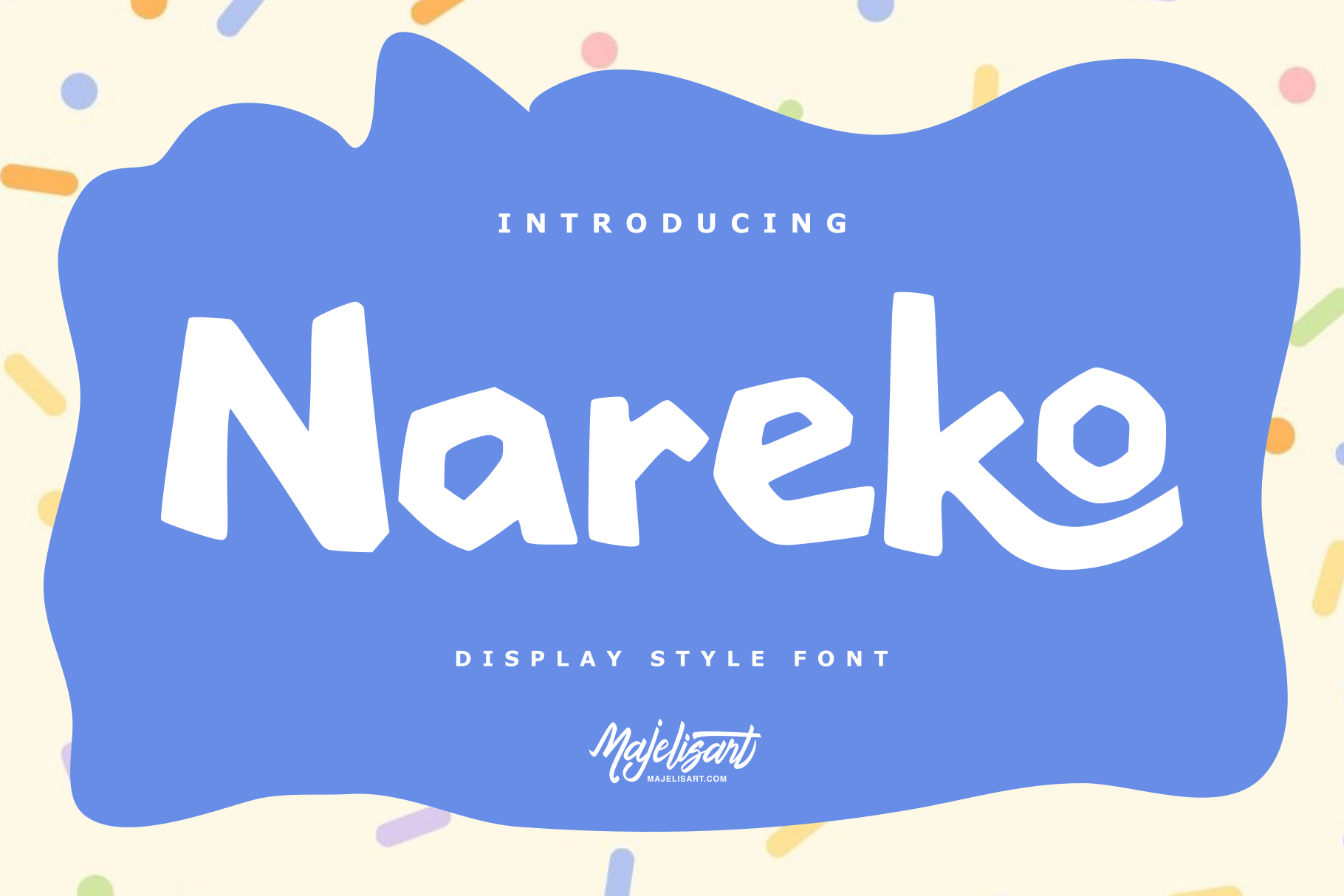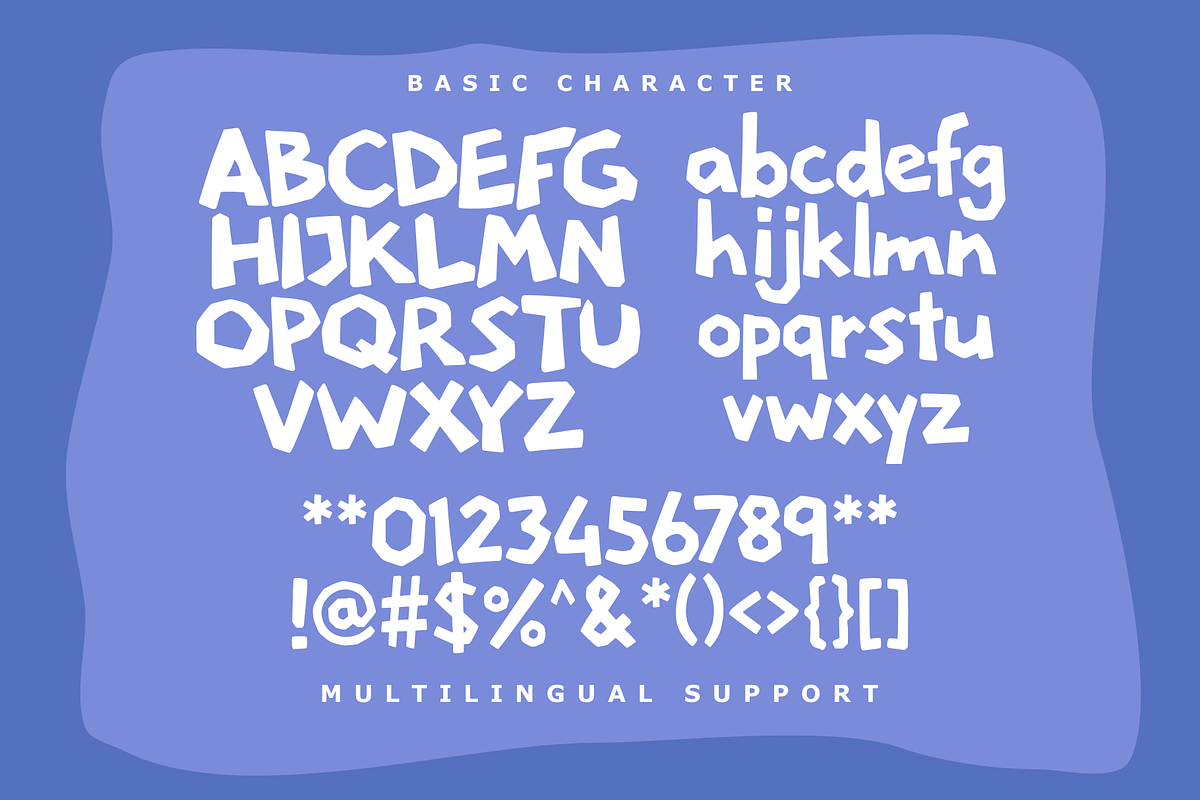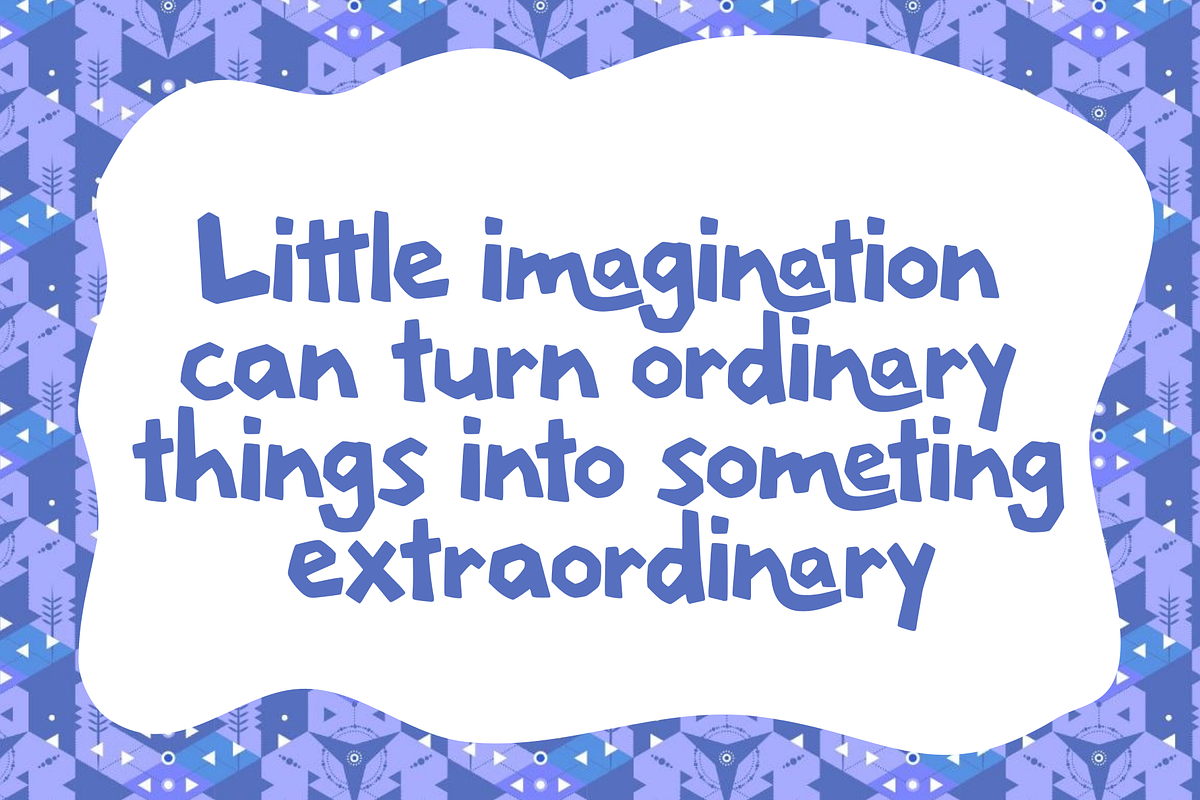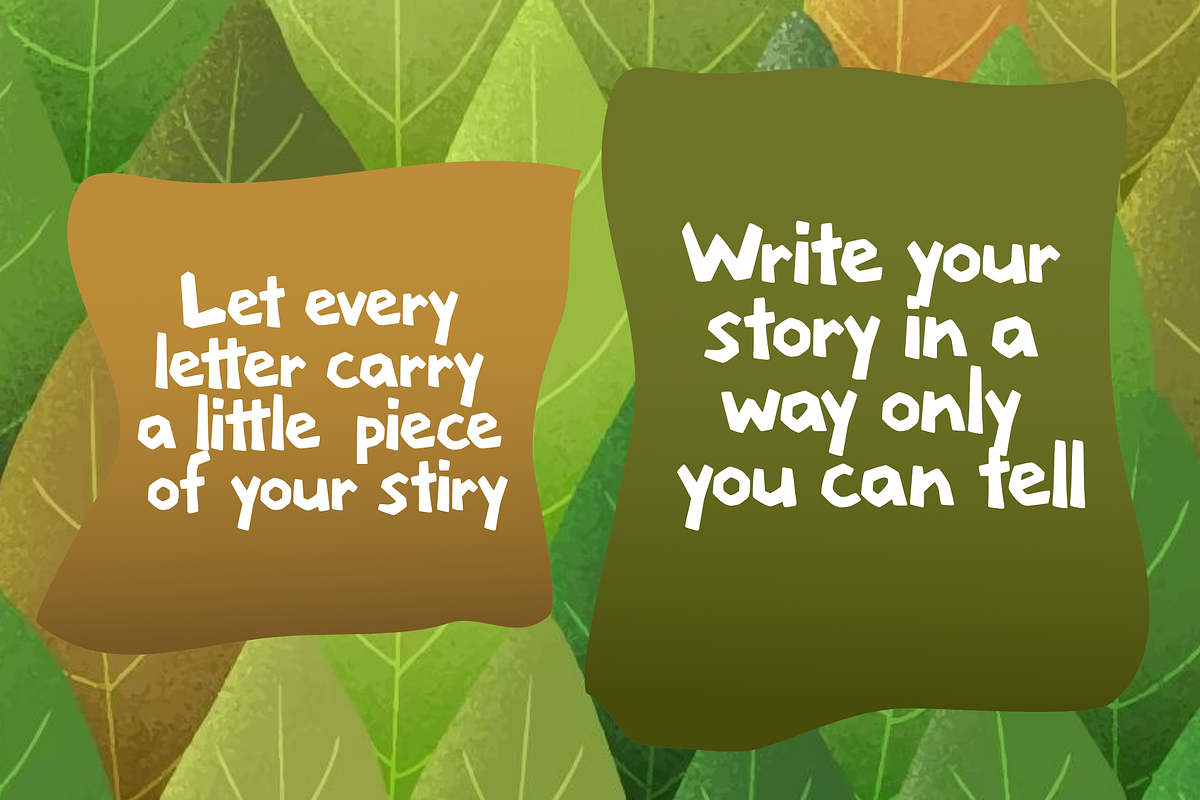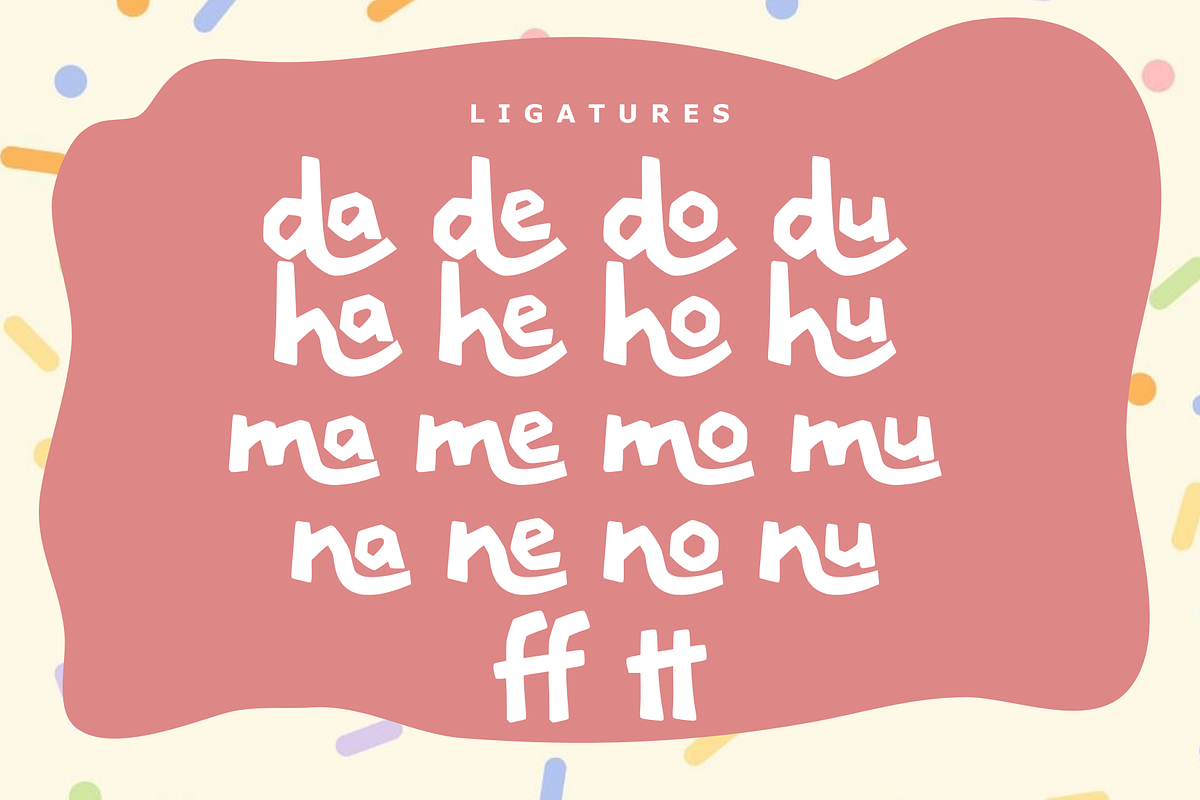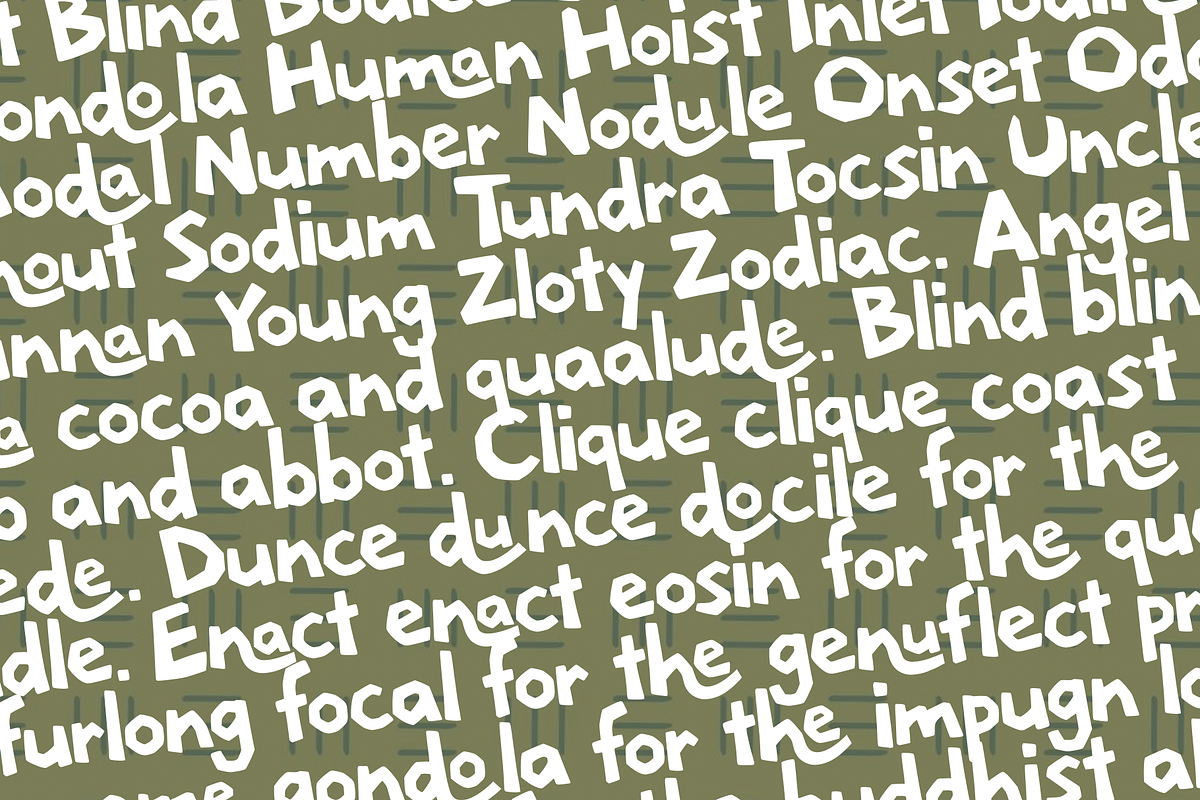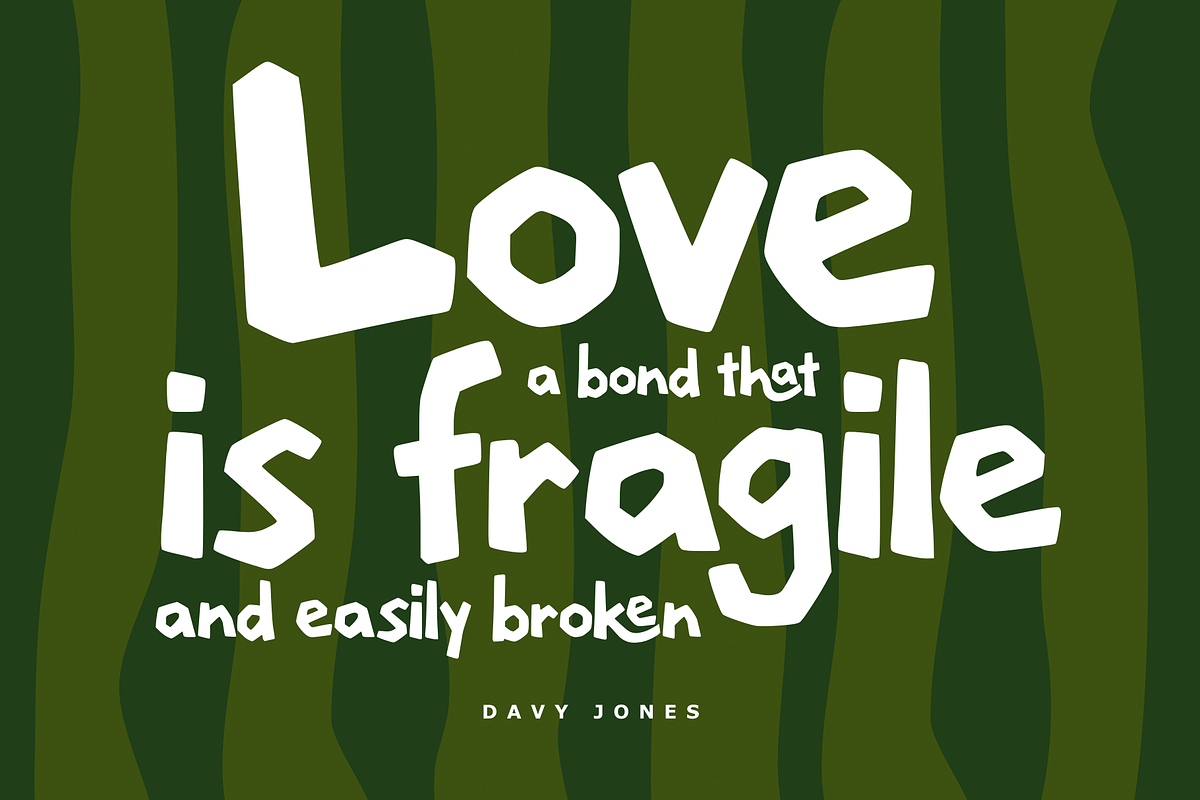
Nareko - Display Font
Nareko — Display Style Font
Introducing Nareko, a playful and bold display typeface with a unique handcrafted character. Its chunky letterforms, geometric details, and smooth curves create a fun and expressive appearance that instantly grabs attention.
Nareko is designed for creative projects that need a friendly, modern, playful, and distinctive visual style. Its bold shapes work especially well at larger sizes, making it a great choice for eye-catching headlines, branding, and display typography.
- Logo & branding
- Posters & flyers
- T-shirt & apparel designs
- Packaging & product labels
- Stickers & merchandise
- Social media graphics
- Children's and playful designs
- Food & beverage branding
- Advertising
- Headlines & titles
- YouTube thumbnails
- Creative campaigns
- Invitations
- Editorial & display designs
Nareko supports multilingual characters, allowing you to create designs in a wide range of languages using Latin-based alphabets.
The multilingual character set makes Nareko suitable for designers, brands, and creative projects intended for an international audience.
Nareko is made to bring a touch of fun, boldness, and personality to your typography.
Nareko — Playful shapes. Bold personality.